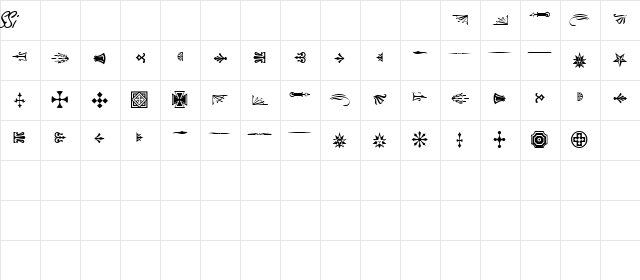
WoodcutOrnamentsOneSSK Regular
Design Context for WoodcutOrnamentsOneSSK Typeface
WoodcutOrnamentsOneSSK echoes the hand-painted signage and woodblock typography of the American frontier, with a warm, rugged personality.
A natural fit for craft spirits, ranch branding, rodeo events, and Americana-inspired design work.
Font Pairing: Combine WoodcutOrnamentsOneSSK with a simple slab or neutral sans — period-accurate companions reinforce the vintage feel without competing for attention.
Pro Tip: Use WoodcutOrnamentsOneSSK for short, impactful bursts of text — it shines in poster headlines and product names rather than extended copy.